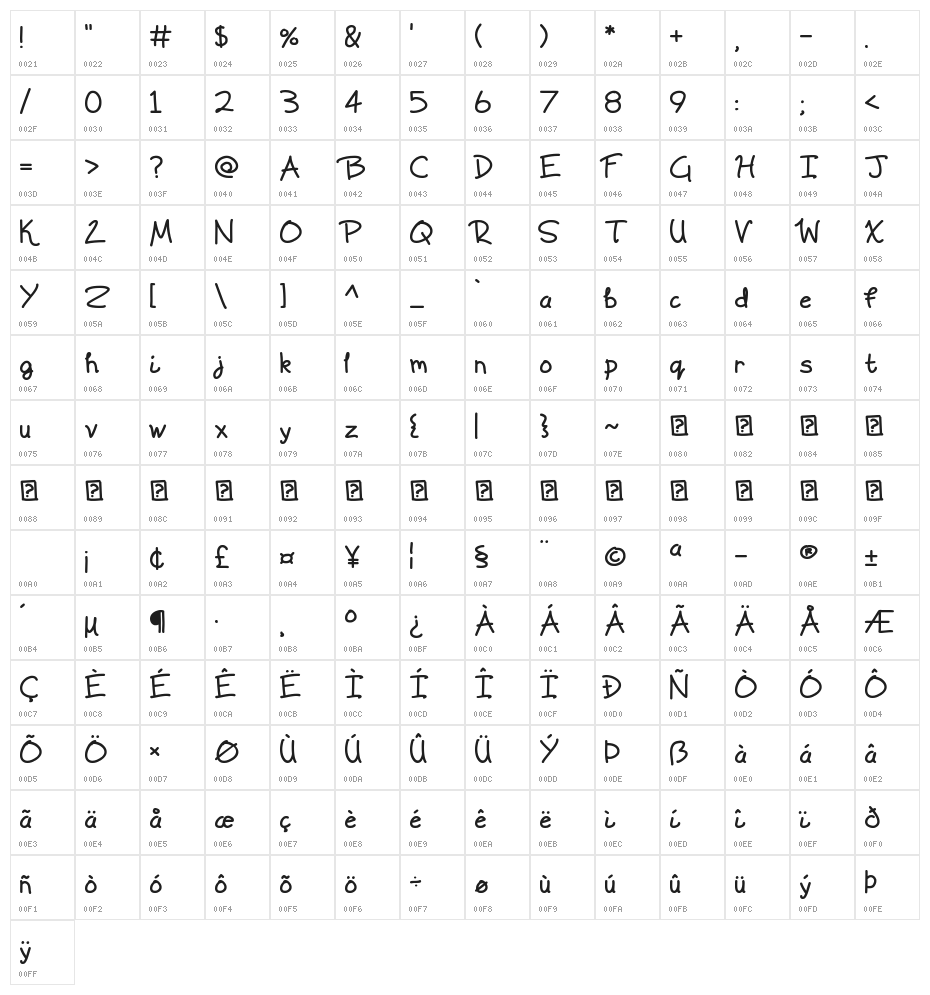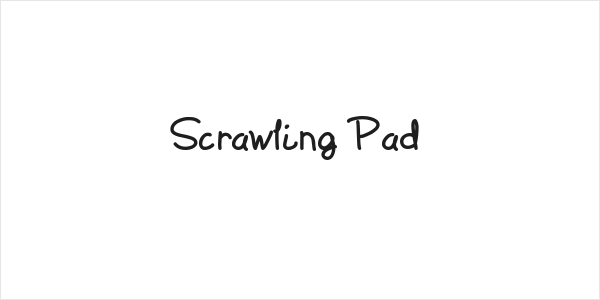
Scrawling Pad Font
Scrawling Pad Description
This playful and casual font features a handwritten style that mimics the look of natural penmanship. The characters are slightly irregular, adding a personal and informal touch. The strokes are smooth and rounded, with a consistent thickness throughout, giving it a friendly and approachable appearance. The uppercase letters are bold and slightly larger than the lowercase, which are more compact and closely spaced. Numbers and special characters maintain the same whimsical style, making the font versatile for various creative applications.